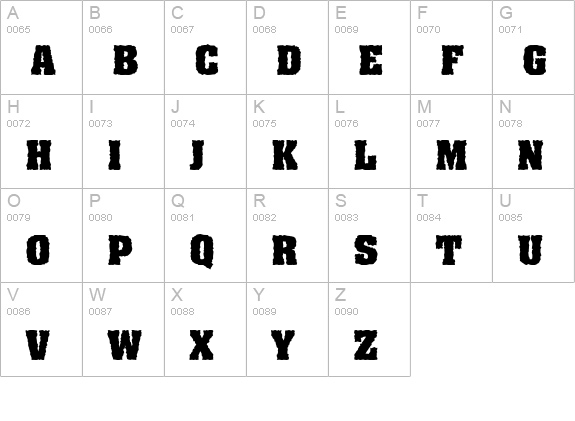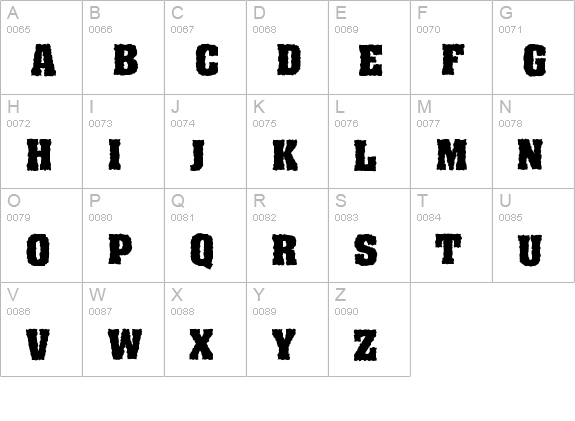
Grunge Aching Bold is a strong, high-contrast variant in the Grunge typeface family \xE2\x80\x94 well suited to headlines, attention-grabbing titles, and strong calls-to-action.
Grunge Aching Bold font is a unique and edgy typeface that exudes raw emotion and intensity. Its rough edges and distressed appearance give it a gritty and rebellious vibe, perfect for adding a touch of boldness to your designs. This font is ideal for projects that require a sense of urgency and attitude, making it a great choice for posters, album covers, and branding materials. The Grunge Aching Bold font is available for free download at FontsMarket.com, where you can easily access this striking typeface to elevate your creative projects. Embrace the raw energy and character of Grunge Aching Bold font in your designs and make a powerful statement that will captivate your audience.